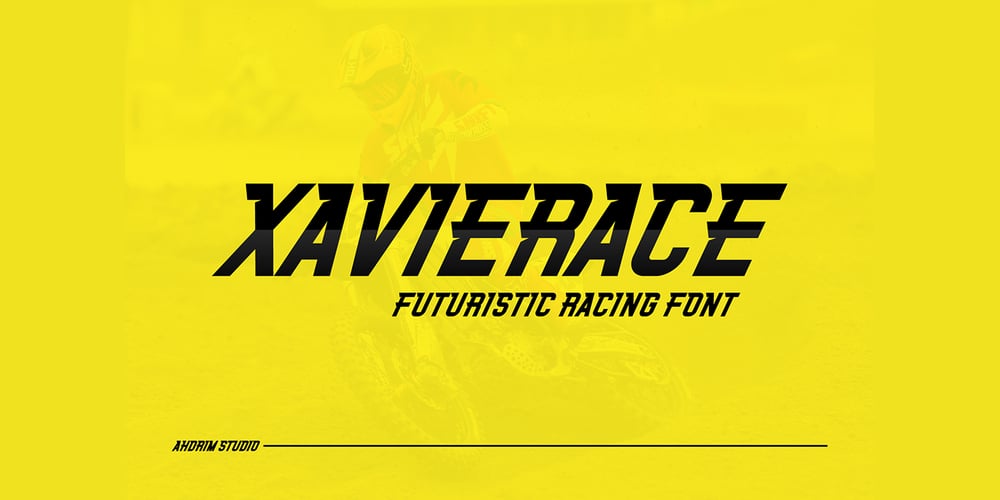
Xavierace
Xavierace font
Xavierace Font Family was designed by Mirdhatillah and published by Portograph Studio. Xavierace contains 1 styles and family package options. Xavierace of a racing-style with sharp lines. Xavierace very suitable for automotive magazine covers, racing game covers, logos & branding, product design, labels, and so on.